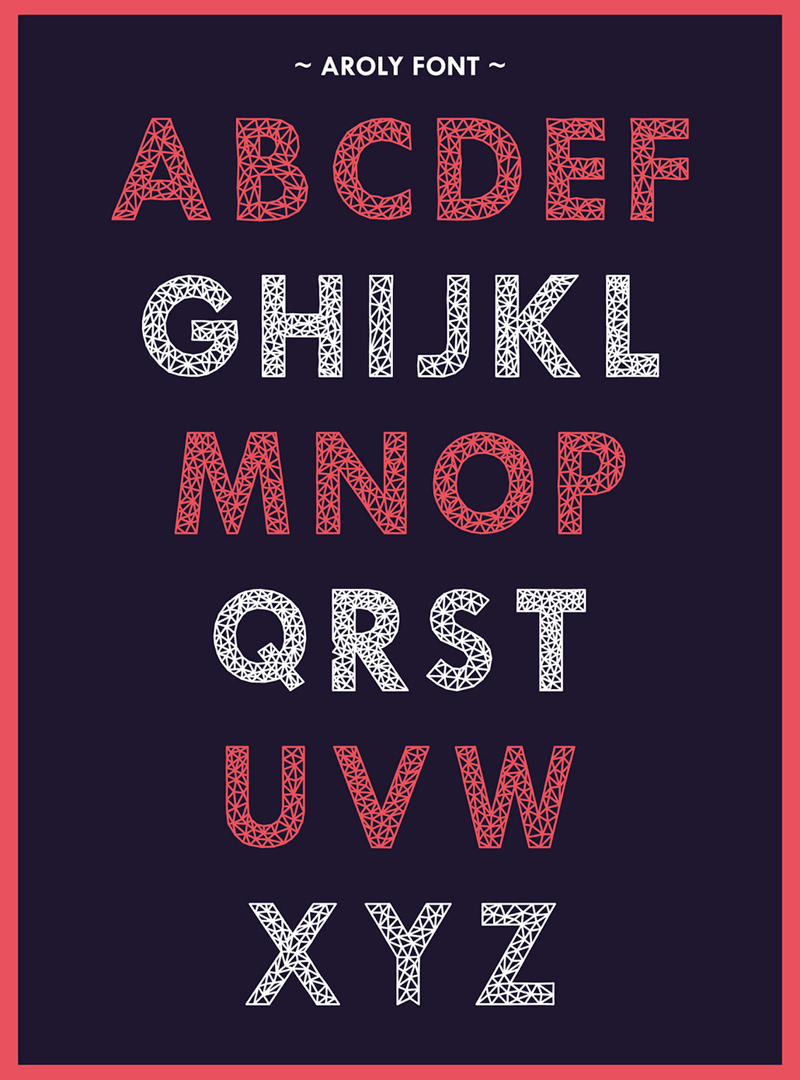
Aroly Font – Free Polygon Typeface
Aroly is a polygonal font made for you to be used in different projects. Thanks to Arvind Kumar for designing and sharing this helpful typeface. Happy downloading!
AROLY FONT is a polygonal heading font. Since polygon made a huge trend, so i planned to make it as a typo with can adapt in all devices. First of all i created high poly font with trigonal lines. Low poly font is Coming Soon.THANK YOU !!! #Aroly #free…